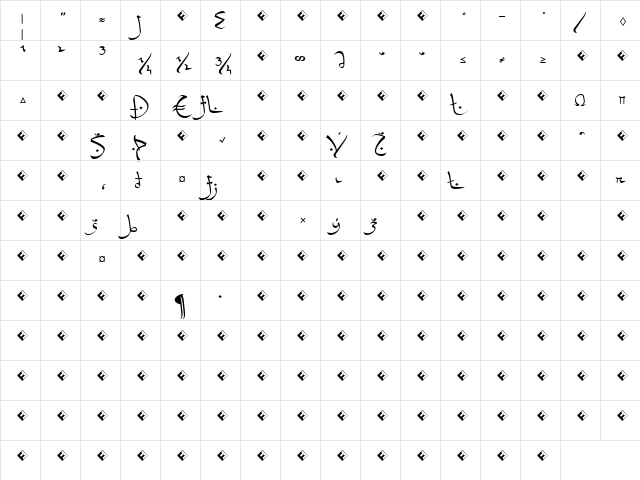
FalafelRegularExpert Regular
FalafelRegularExpert is a composed and adaptable typeface that performs quietly and consistently across a wide range of design contexts.